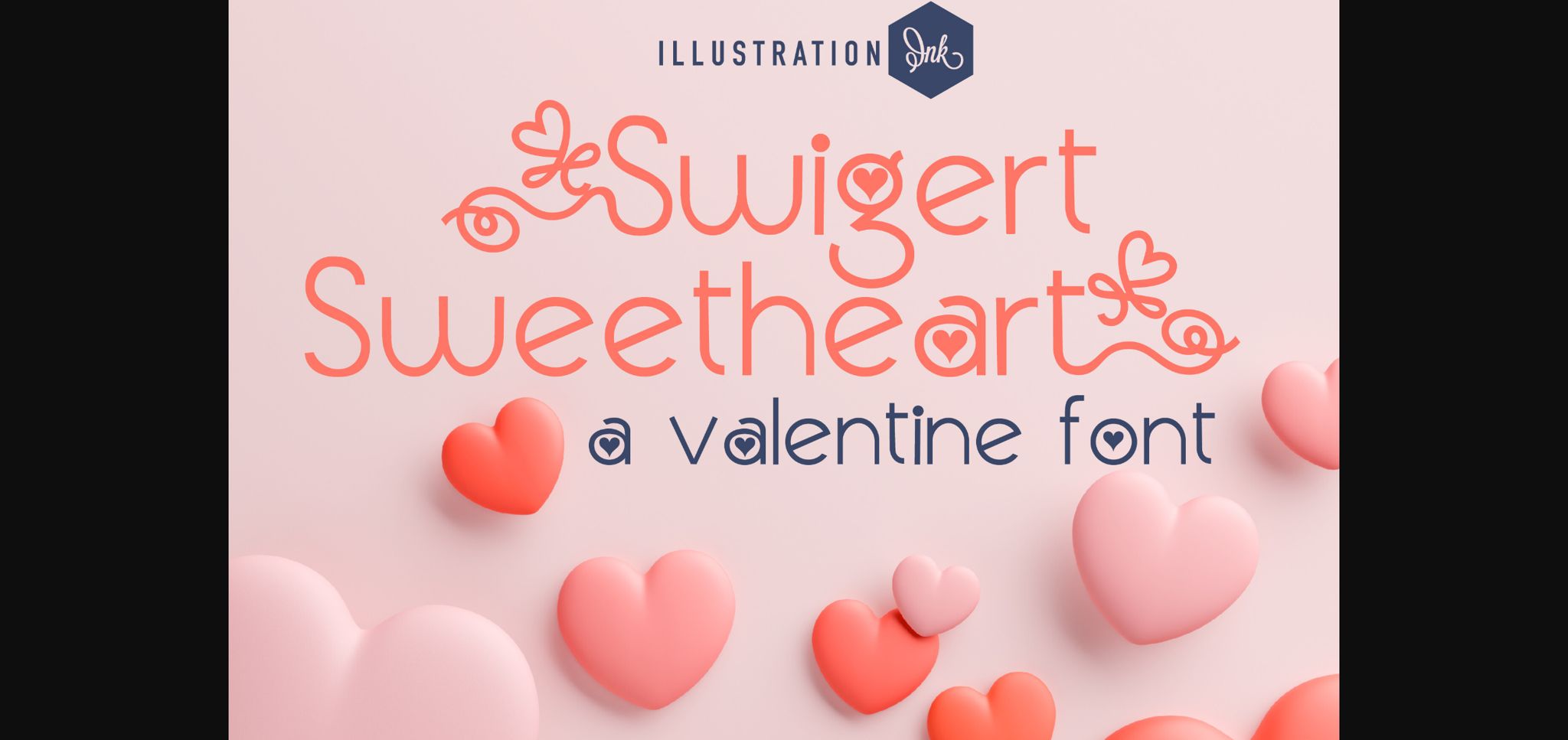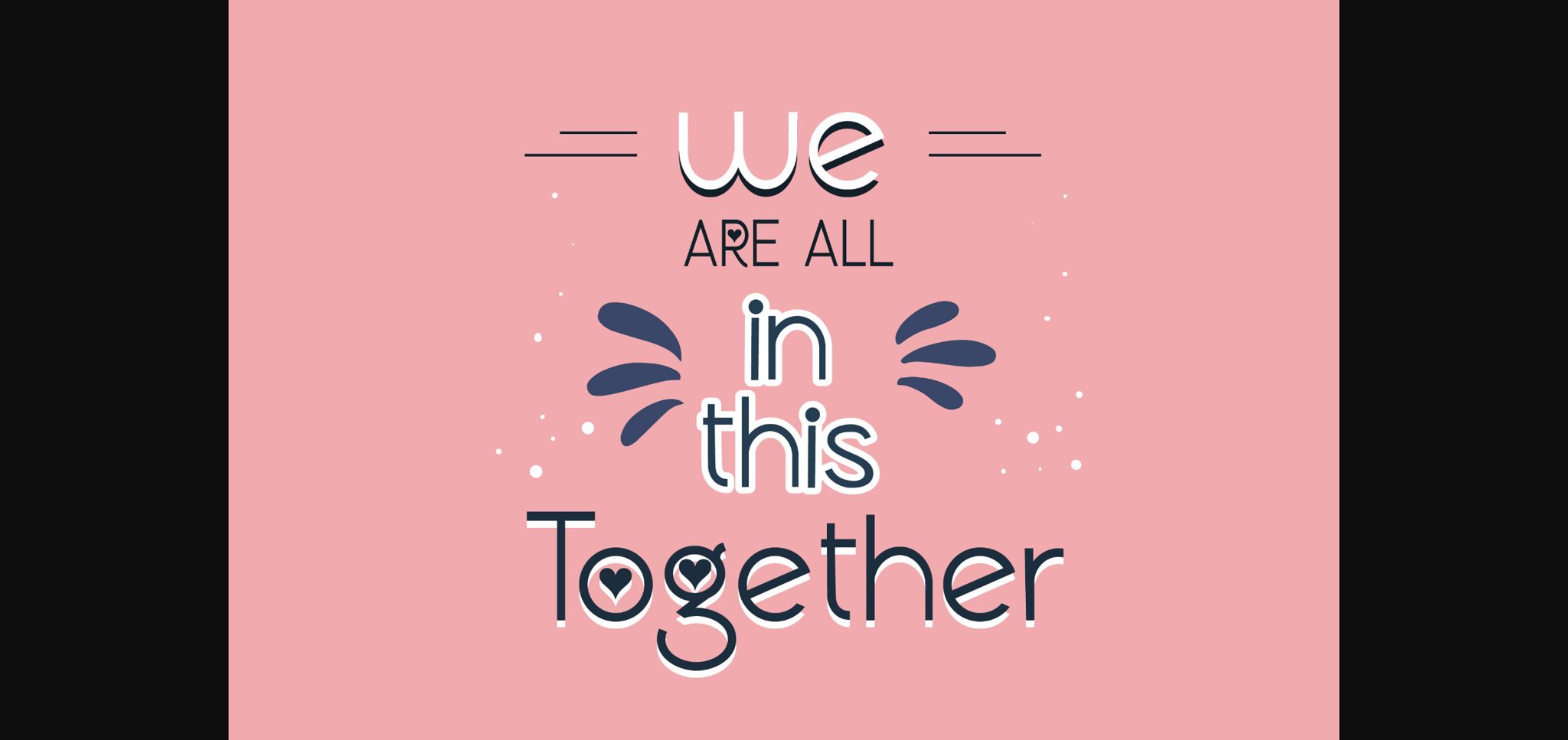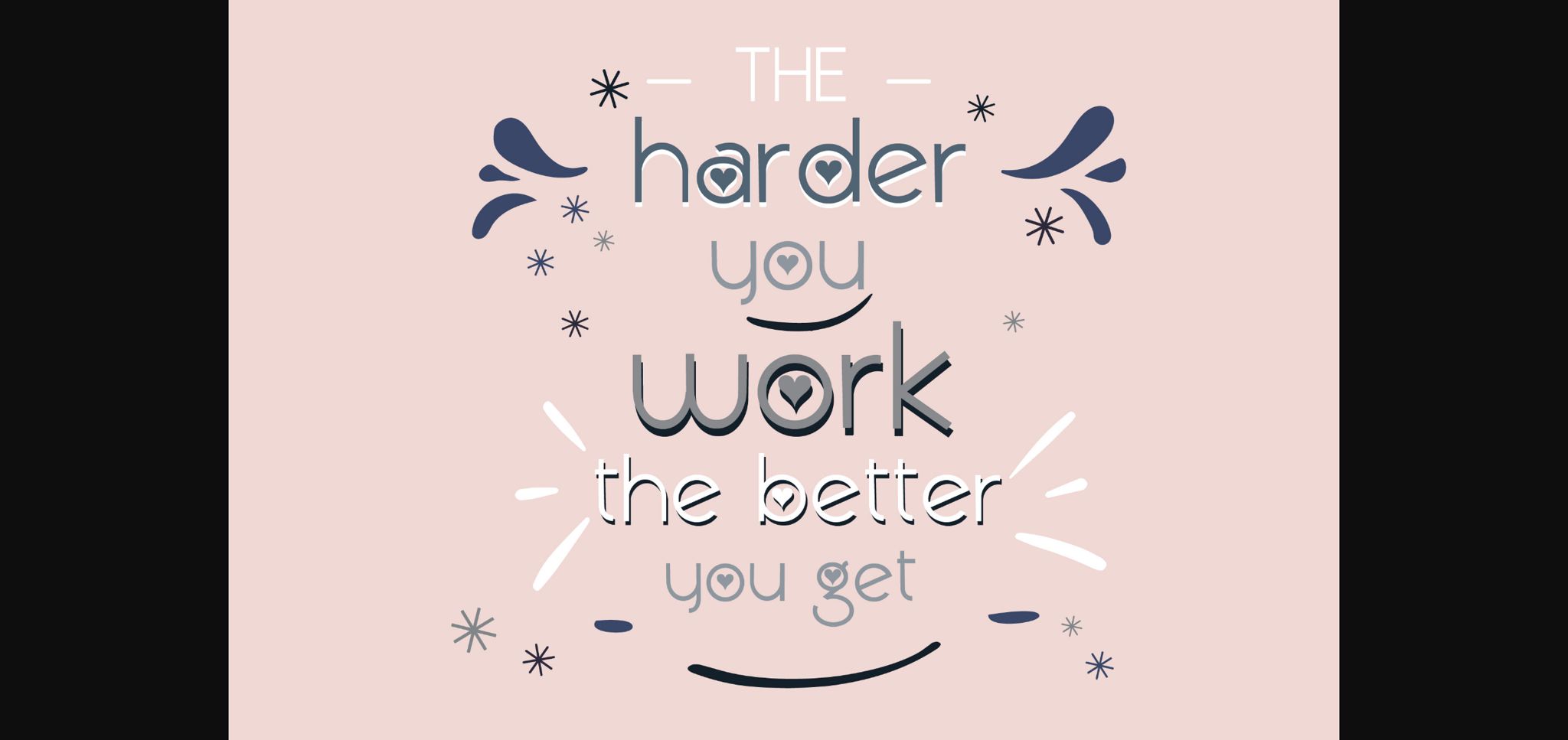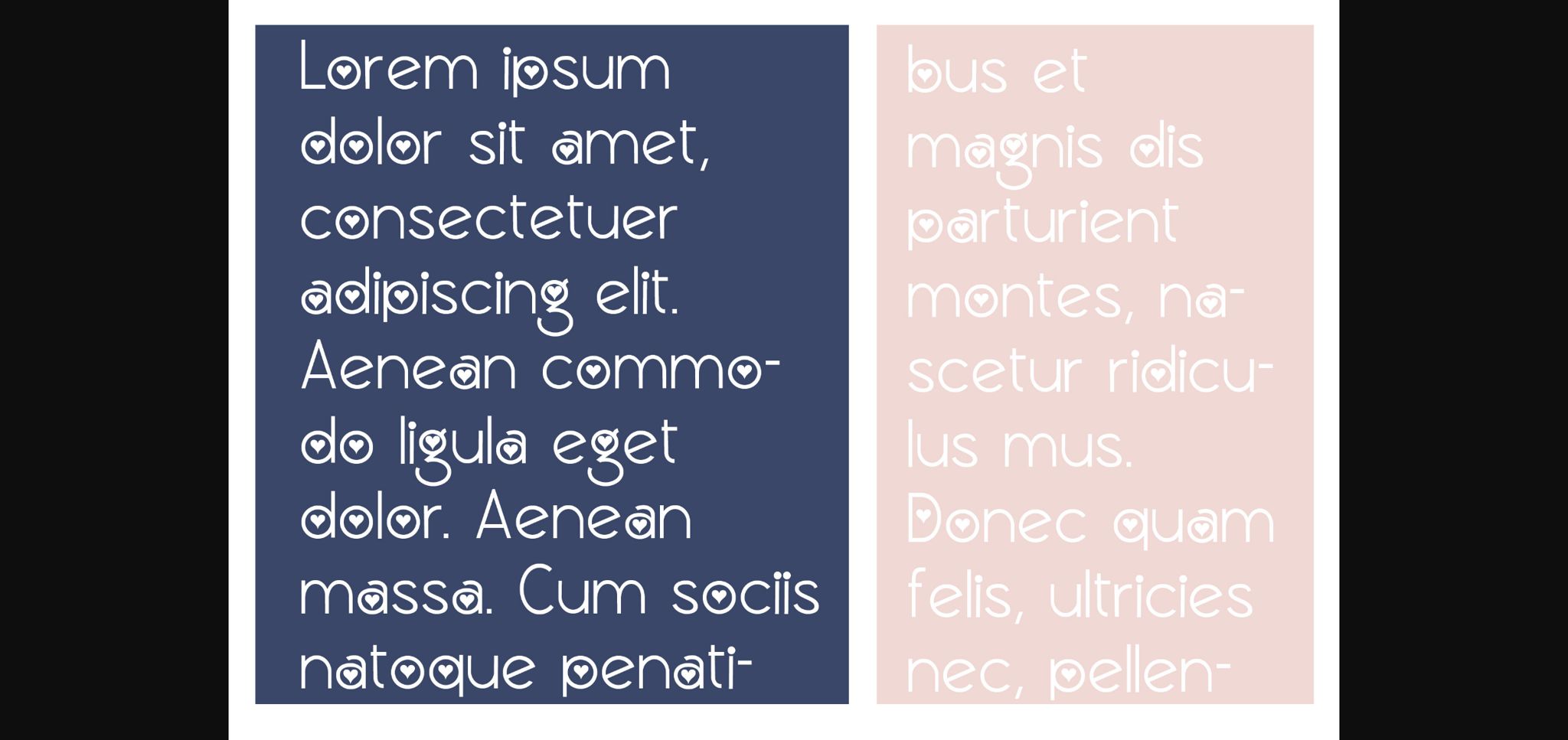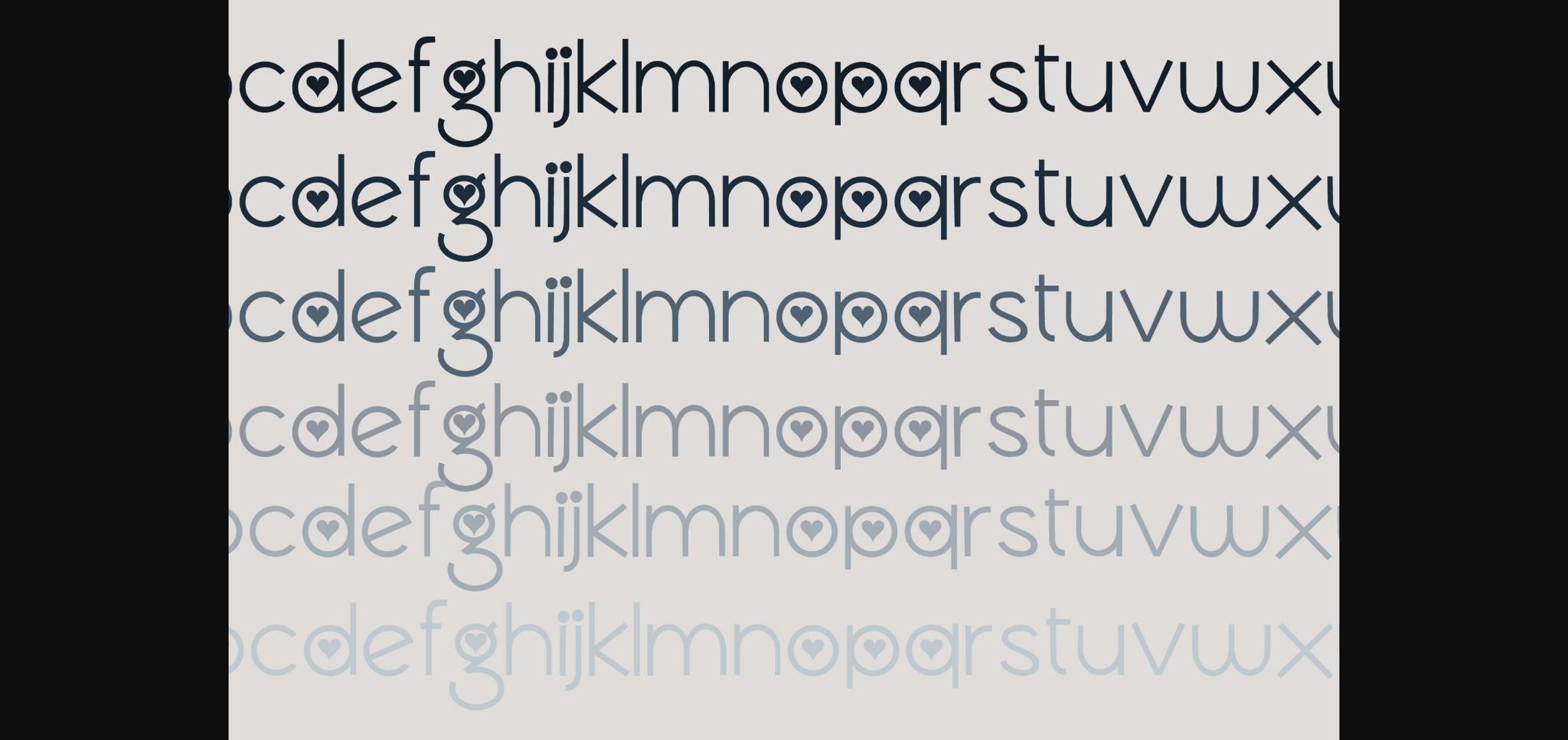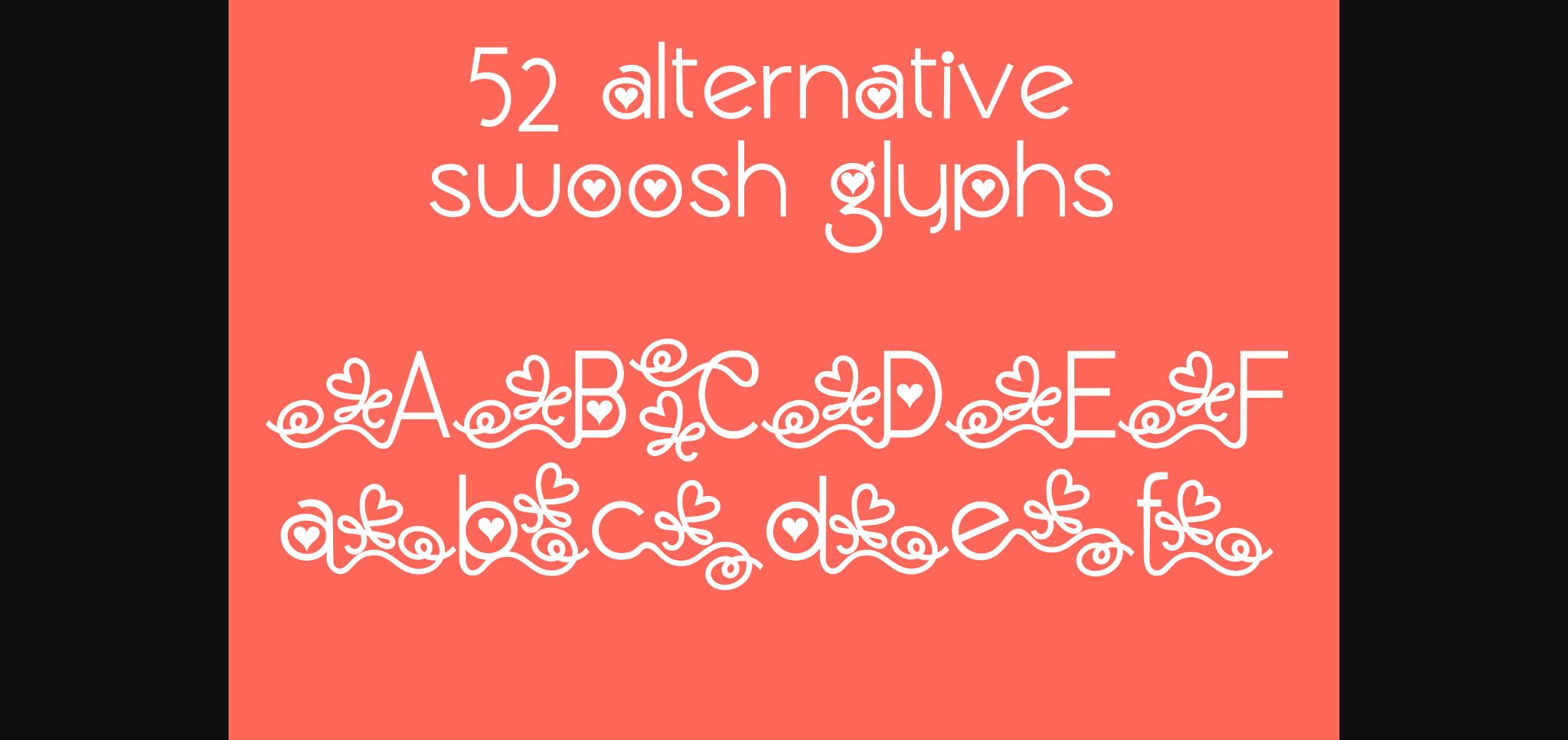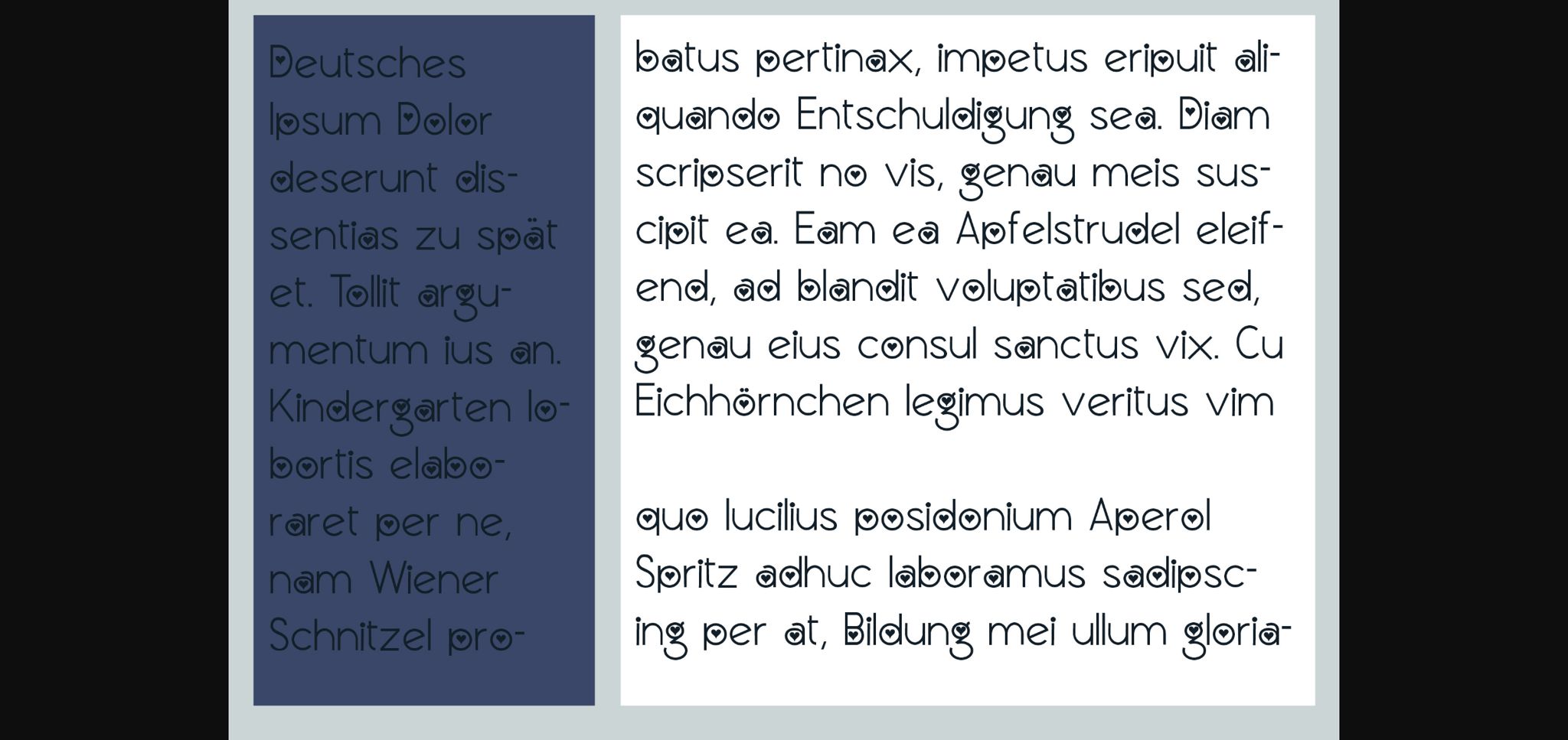
Swigert Sweetheart Font
About Swigert Sweetheart Font
This sans serif font features a heart throughout. There are alt versions of each lettering with heart flourishes. No matter the topic, this font will be an incredible asset to your fonts’ library, as it has the potential to elevate any creation.